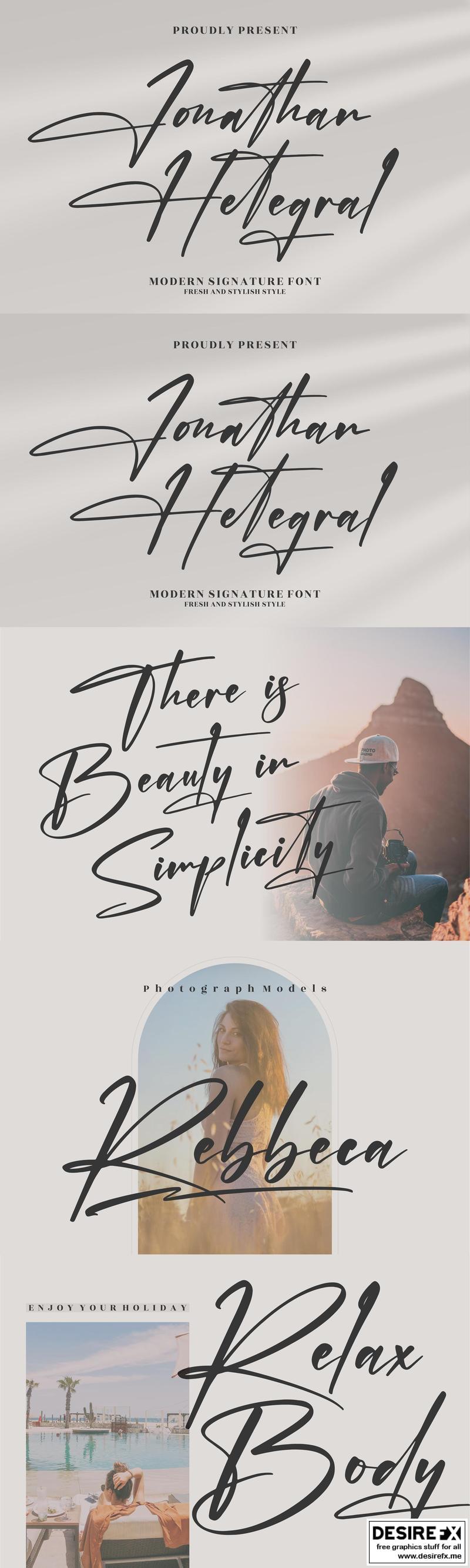
Jonathan Hetegral Modern Siganture Font LS 5WEJ82Q
Hi ladies & gentlemen, this is one of our fonts suitable to complement your digital and printed creative products.
This font is perfect for posters, social media posts, branding, personal projects, etc.